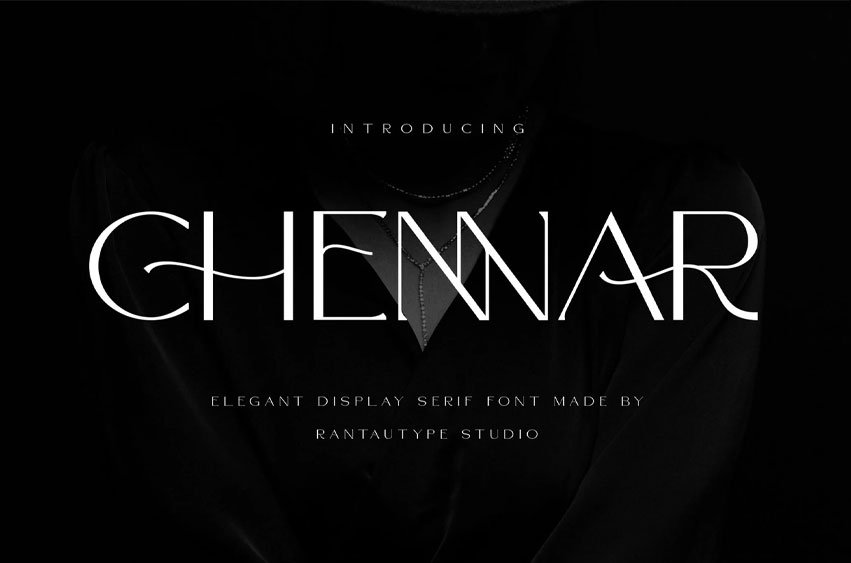
Chennar Font is an elegant serif typeface created by Rantautype Studio. The letterforms feature a graceful balance between delicate curves and sharp serifs, resulting in a luxurious and professional appearance.
Chennar is a perfect choice for any creative project, including modern lifestyle designs such as logotypes, titles, covers, branding, invitations, wedding designs, displays, magazines, social media posts, advertisements, printed quotes, product packaging, corporate branding, product designs, labels, photography, watermarks, special events, and any other projects that require an elegant touch.